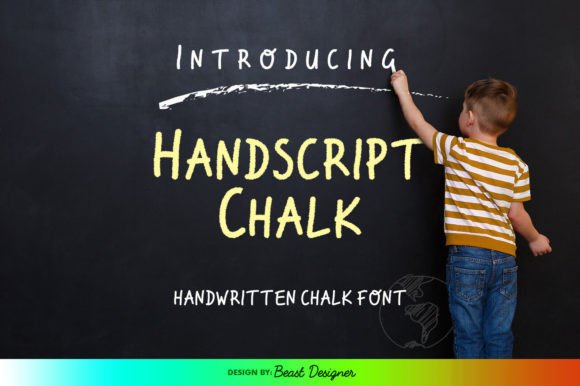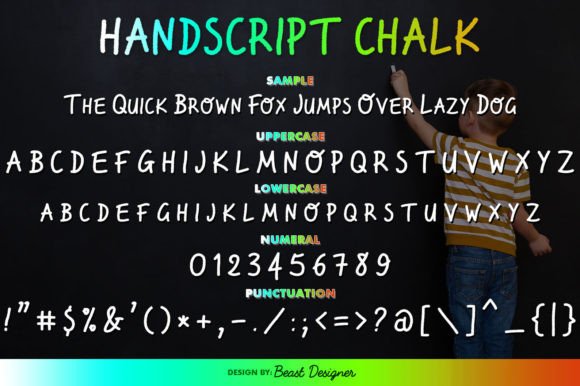
Handscript Chalk Font
About the Handscript Chalk Font
Crafted with precision, the Handscript Chalk Font is ready to bring your ideas to life. Handscript Chalk Font is a charming handwritten script font that captures the essence of classic chalkboard writing. With its textured, chalk-styled letters, this font brings a nostalgic and playful feel to your creative projects. Perfect for school-themed designs, restaurant menus, invitations, quotes, or any project that aims to evoke a sense of creativity and fun, Handscript Chalk adds a personal, hand-drawn touch that stands out.
This font excels in headlines, short quotes, and display text where its playful nature shines. It’s ideal for branding projects needing a friendly, approachable feel, such as children’s products, cafes, or artisan businesses. However, its textured nature and varying letterforms make it unsuitable for body text or UI elements requiring high readability.
Handscript Chalk Font pairs well with clean sans-serif fonts like Open Sans for a balanced contrast, or a more geometric sans-serif such as Montserrat for a modern twist. A simple serif like Merriweather can add a touch of classic elegance to offset the hand-drawn informality.
The overall personality is undeniably playful and nostalgic, conveying a sense of warmth and handmade charm. Avoid using it in contexts requiring seriousness or sophistication.
Handscript Chalk Font Usage Examples
Handscript Chalk Font Example